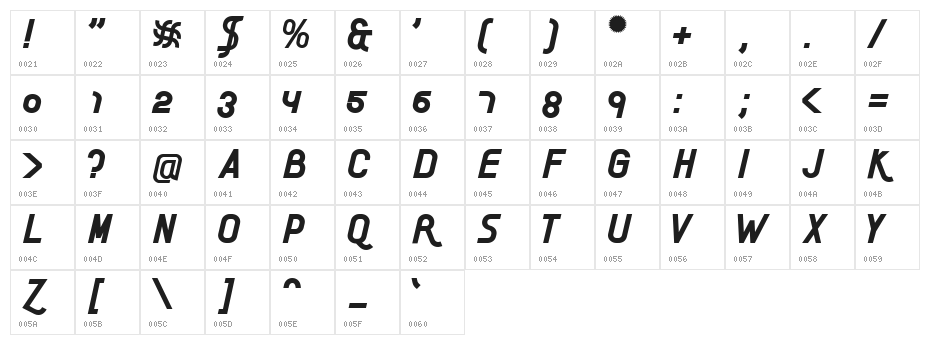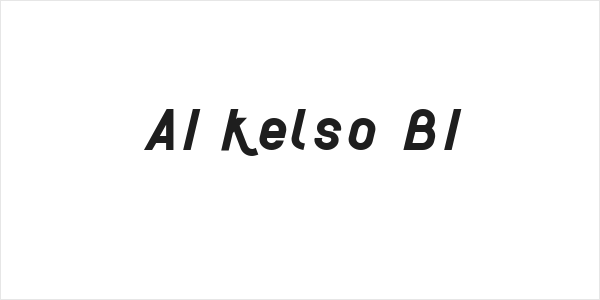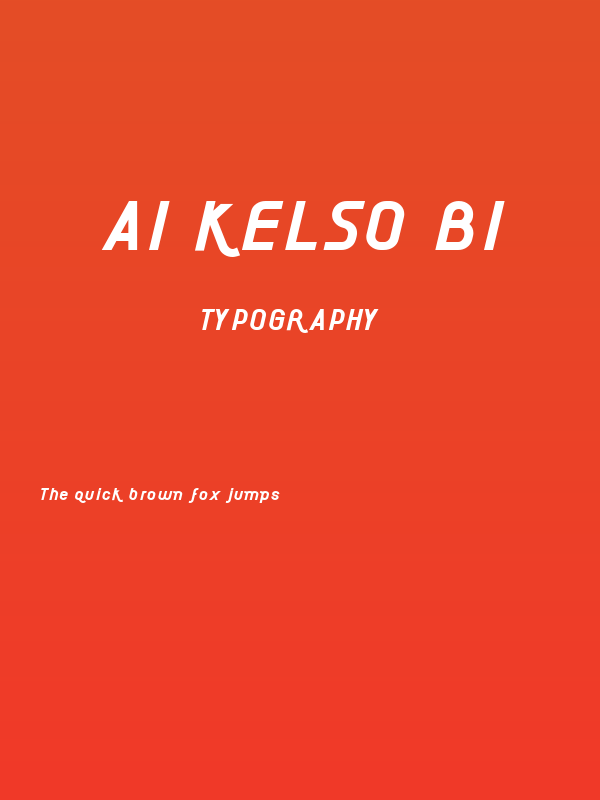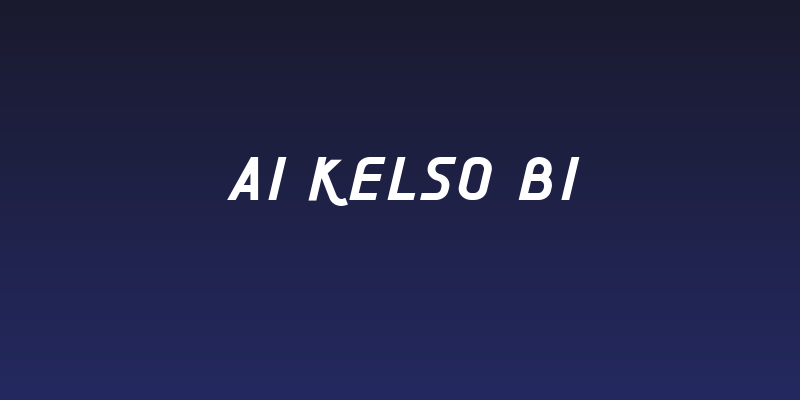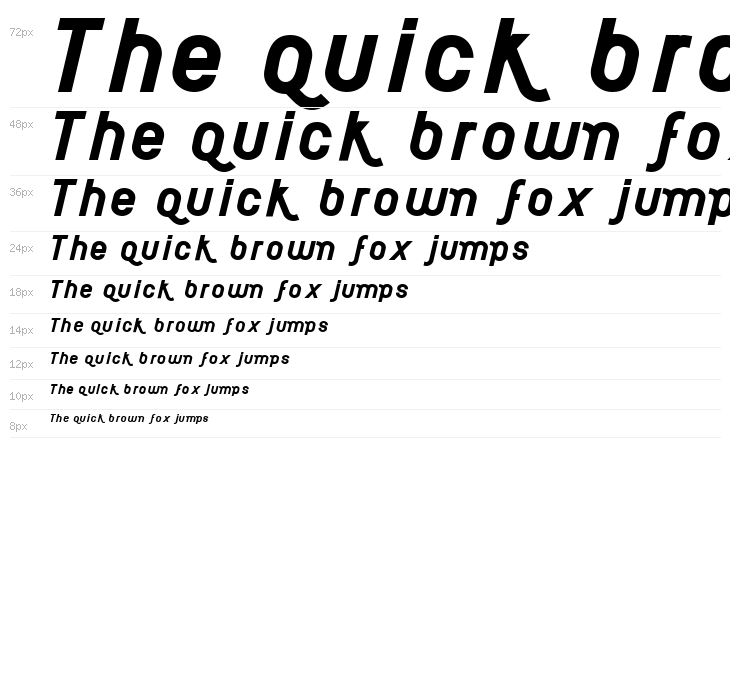
AI kelso BI Font
AI kelso BI Description
This font features a bold and dynamic style with a slight italic slant, giving it a sense of motion and energy. The characters are well-defined with a consistent stroke width, providing a clean and modern appearance. The uppercase letters are slightly taller than average, while the lowercase letters maintain a uniform height, enhancing readability. The numbers are distinct and easy to distinguish, making them suitable for various applications. Special characters are included, offering versatility for different design needs. Overall, this font combines a contemporary aesthetic with functionality, making it ideal for impactful headlines and branding projects.
| Proposed Projects | Ideal for branding, advertising, sports-related designs, and dynamic headlines. |